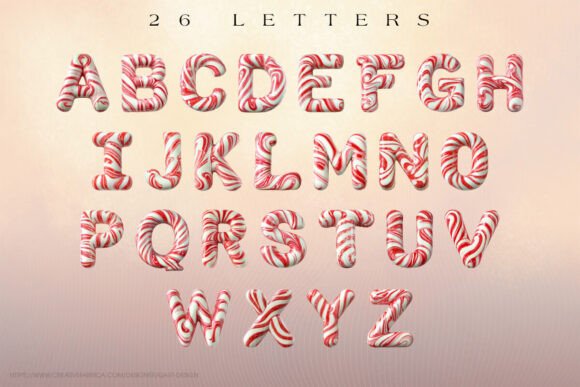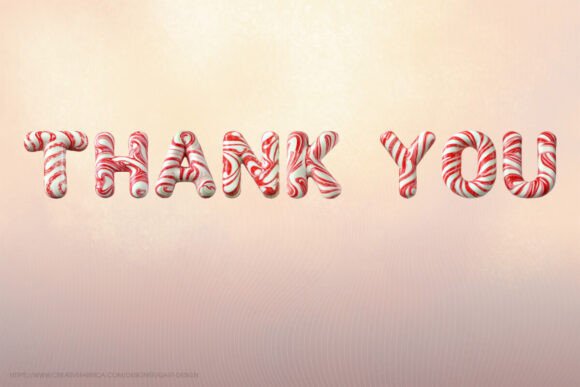
Candy Cane Christmas Font
Embrace the holiday spirit with the Candy Cane Christmas Alphabet Font. Delightfully modeled after peppermint candy canes, this festive font drenches every letter and number in a merry shade of Christmas red. Consisting of 26 letters and 10 numbers, this is more than a typeface, it’s a visual feast, a vivid statement that Christmas is here. Welcome home the holiday magic with every keystroke as this font livens up your festive projects.Note!This product is a color font (Opentype-SVG) and is compatible with PhotoShop, Illustrator, Silhouette, and Inkscape. The OTF and/or TTF files of this product are not compatible with Cricut. For more information on how to use this type of font please check our Ultimate Font Guide .